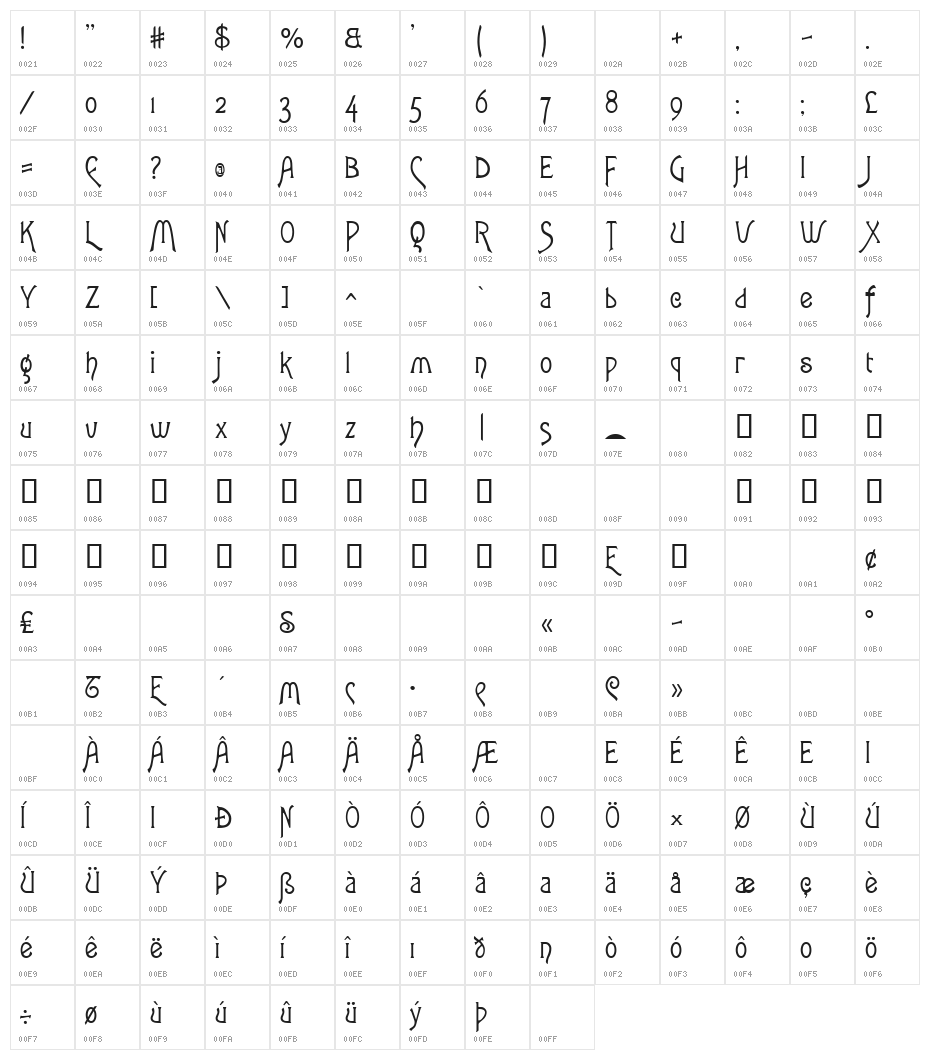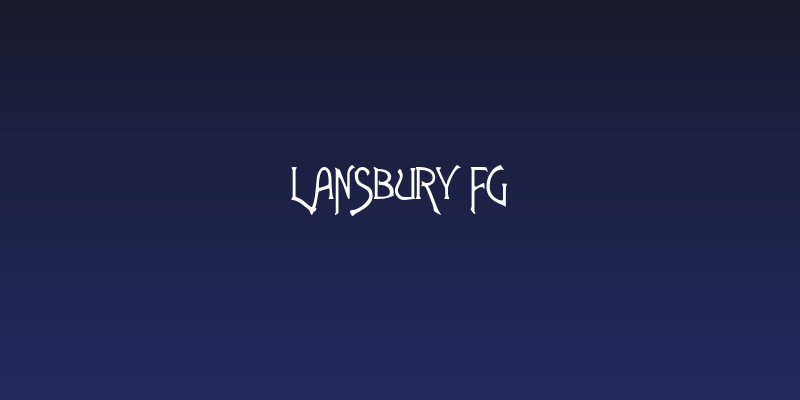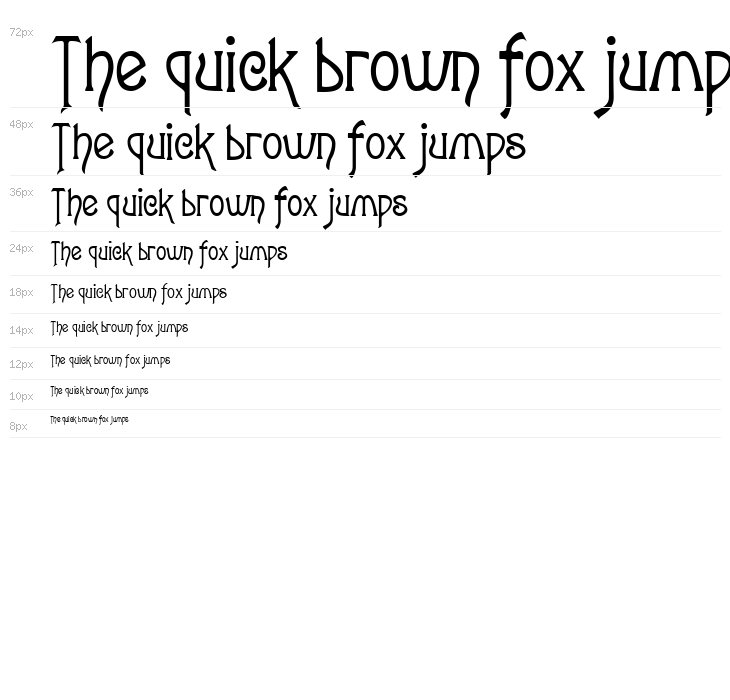
Lansbury FG Font
Lansbury FG Description
This font features a unique and artistic style with a blend of sharp angles and smooth curves, creating a distinctive and somewhat whimsical appearance. The uppercase letters exhibit a tall and narrow form, with some characters incorporating unusual flourishes and extensions that add to the font's decorative nature. The lowercase letters maintain a similar style, with consistent stroke thickness and playful elements that mirror the uppercase design. The numerals are crafted with the same artistic flair, ensuring a cohesive look across all characters. Special characters are included, each designed to complement the overall aesthetic. This font is ideal for projects that require a touch of creativity and elegance.
| Proposed Projects | Ideal for invitations, posters, branding, and any project that benefits from a creative and decorative touch. |